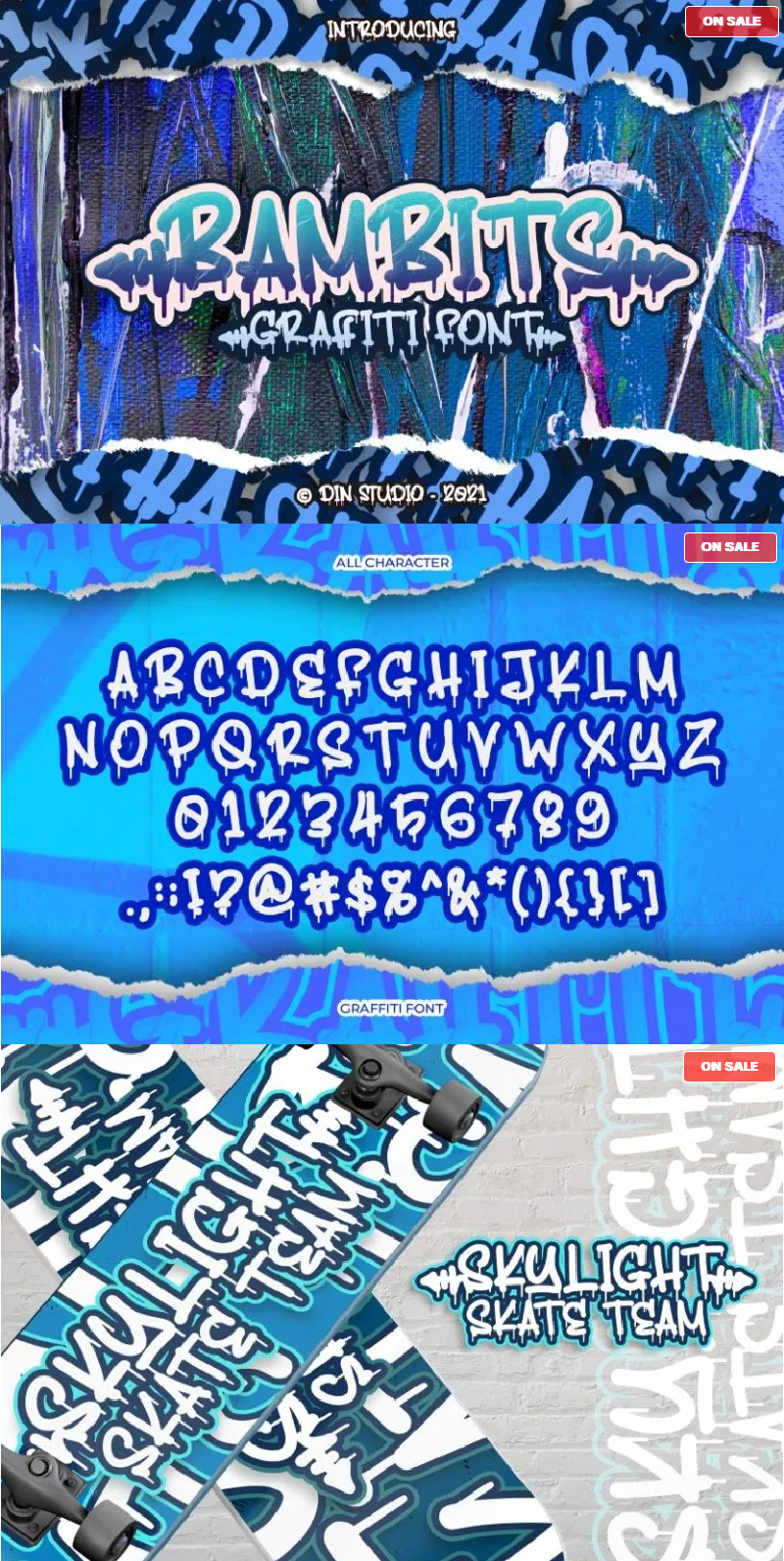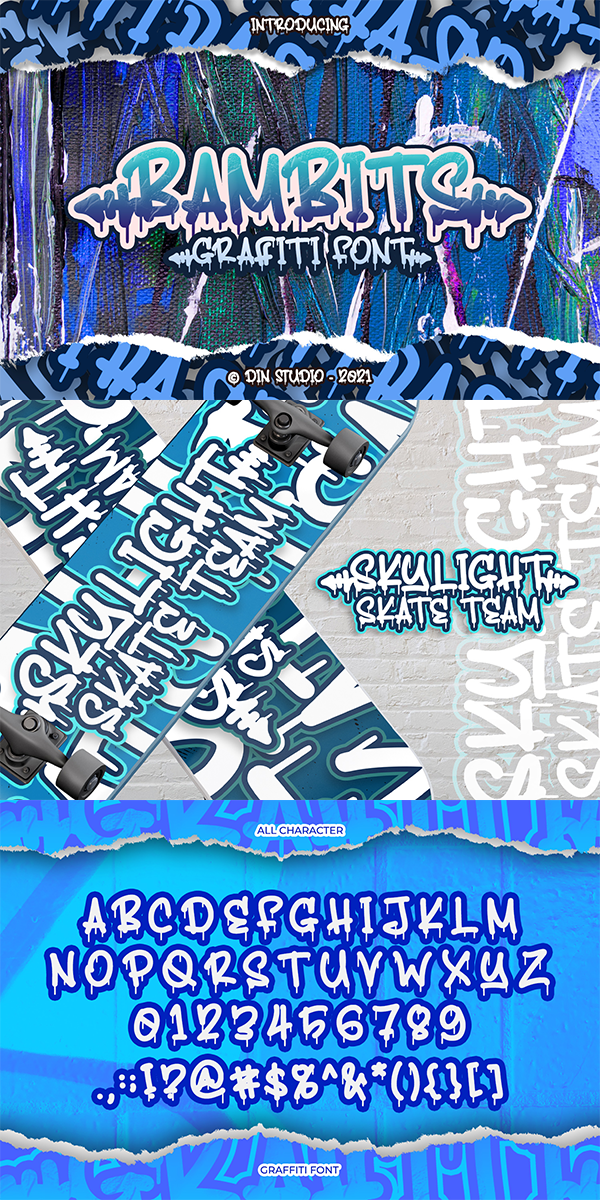
Bambits Font
About Bambits
Bambits is a typeface that combines the bold bubble font design, with the graffiti aesthetic. An easy-to-read typeface, with a touch of character, the font is highly adaptable to the gritty urban style, and the dark vibe, to fit whatever your project needs. Create gorgeous printed quotes, standout packaging, or beautiful t-shirts!